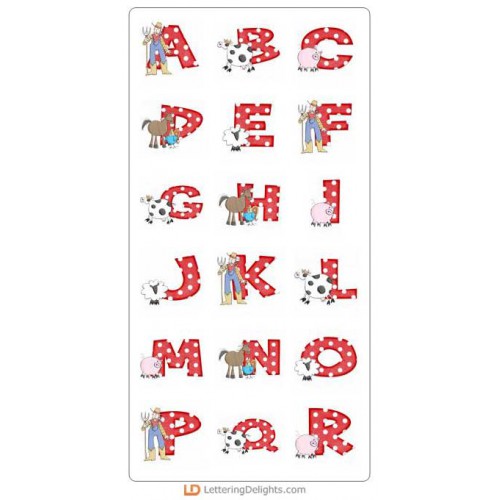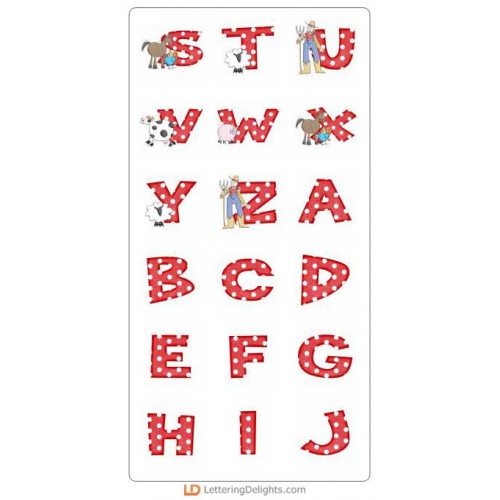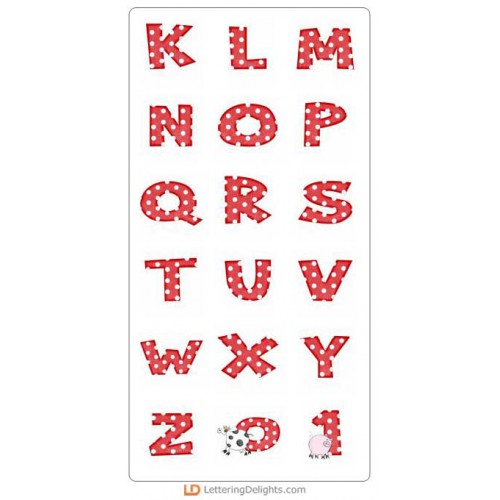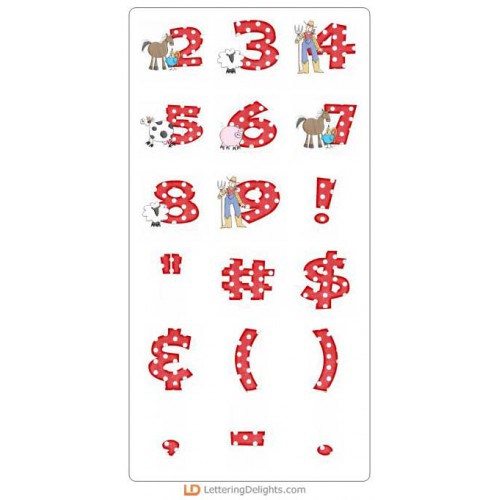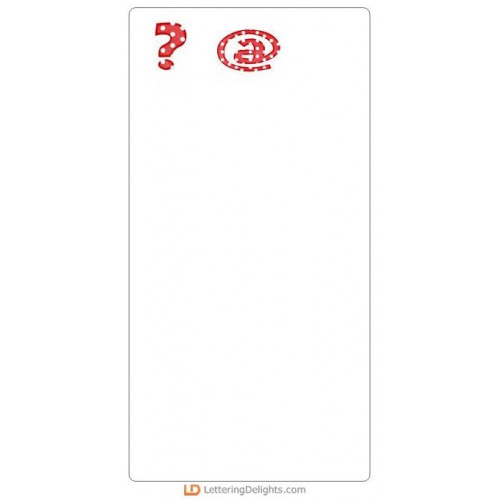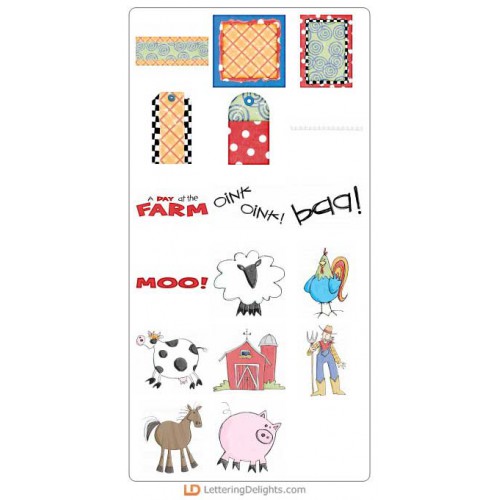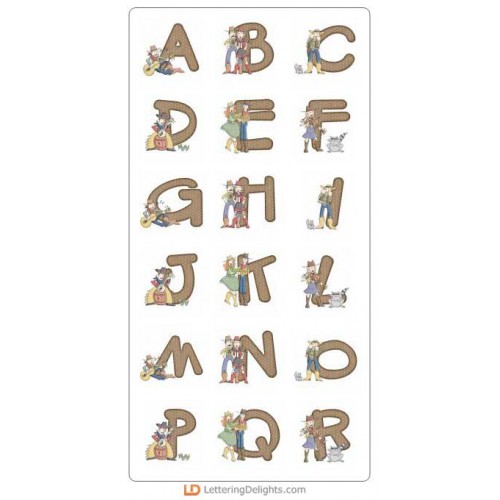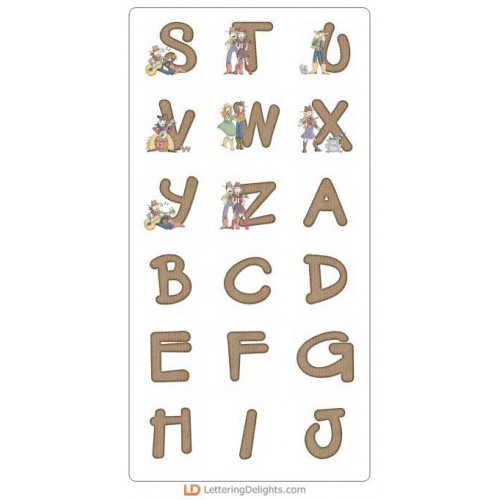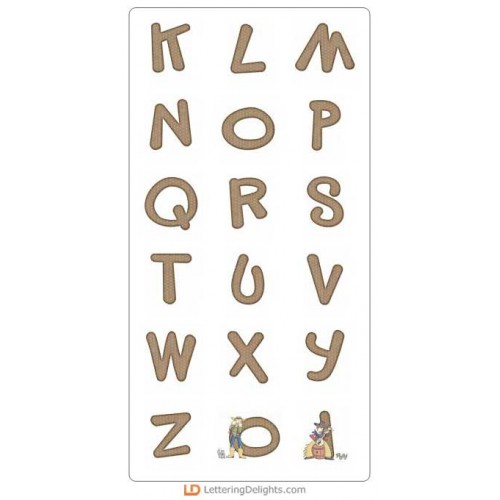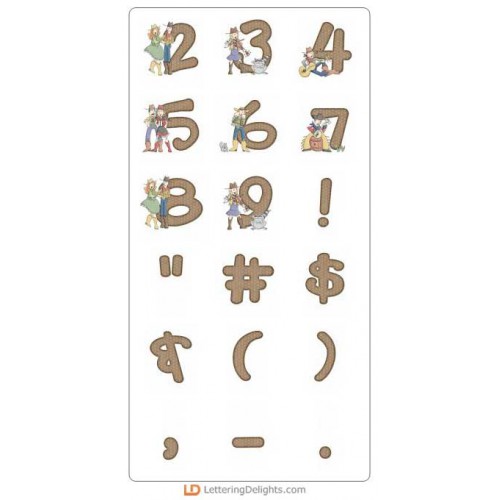
Rani's Western Wonder Bundle
Buckle up, it's time for Rani's western wonder bundle. This bundle includes western themes alphabets and graphics set. It's just right for an old west themed scrapbook layout.